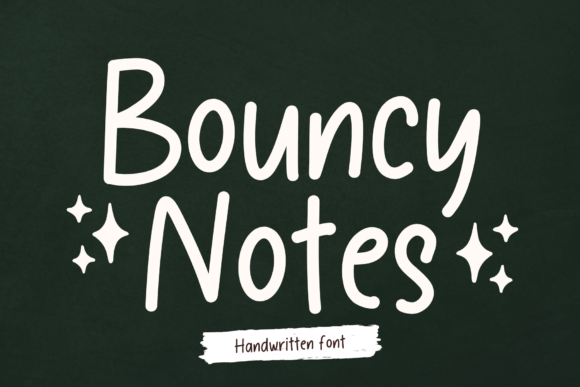
The Perfect Handwritten Touch for Your Designs
Remember the moment when you stumbled upon the perfect font for your next creative project? The one that captures the essence of your vision and brings your ideas to life? That’s exactly what we’re about to share with you – a font that’s sure to put a smile on your face and elevate your designs to the next level.
Meet the Bouncy Notes Font, a playful and authentic handwritten font that’s perfect for adding a personal touch to your favorite projects. From blog posts to logos, branding, and invitations, this font is the ultimate companion for designers who want to convey warmth and creativity. Whether you’re a seasoned pro or a newcomer to the world of design, the Bouncy Notes Font is an invaluable addition to your toolkit.
Bouncy Notes Font Key Features
- Unique Characteristics: Bouncy Notes Font features a playful, hand-drawn style with subtle texture and a sense of movement, making it perfect for creating engaging and eye-catching designs
Bouncy Notes Font Review
Overall, I think Bouncy Notes Font has some great qualities that make it fun to use, but it also has some limitations that prevent it from being a top choice for every project.
- ✨ The font’s playful and whimsical feel is perfect for creating engaging, lighthearted content, such as children’s books, greeting cards, or social media graphics.
- ✨ The font’s variability in line weight and letter spacing adds a lot of character and visual interest to text.
- ✨ The font’s readability is surprisingly good, considering its bouncy and irregular shape.
- ⚠️ The font may be too distracting or overwhelming for more formal or serious content, such as business reports, academic papers, or news articles.
- ⚠️ The font’s irregular shape can make it difficult to read at small sizes or in certain contexts, such as in tables or on very small screens.
Bouncy Notes Font is a fun and creative choice for the right project, but it’s not a one-size-fits-all solution. If you need a playful, attention-grabbing font for a fun or lighthearted project, Bouncy Notes is definitely worth considering. However, if you need a more professional or serious font, you may want to look elsewhere.
The Bouncy Notes font is ideal for:
- Creating playful and eye-catching graphics for social media.
- Designing posters and flyers for events or promotions.
- Adding a touch of whimsy to presentations and documents.